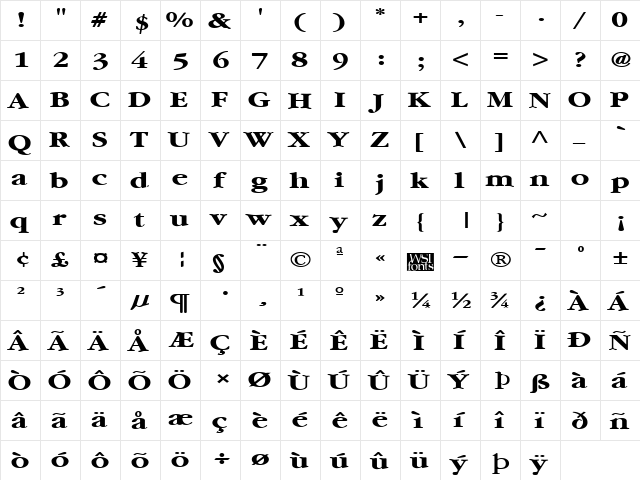
GarnetBroad Bold
Design Context for GarnetBroad Typeface
GarnetBroad takes a measured approach to typography — its balanced proportions and neutral character make it a reliable workhorse for both digital and print work. Its bold stroke weight gives it real presence on the page.
Pro Tip: Use GarnetBroad in both headline and body roles to test its range before committing to a single application.